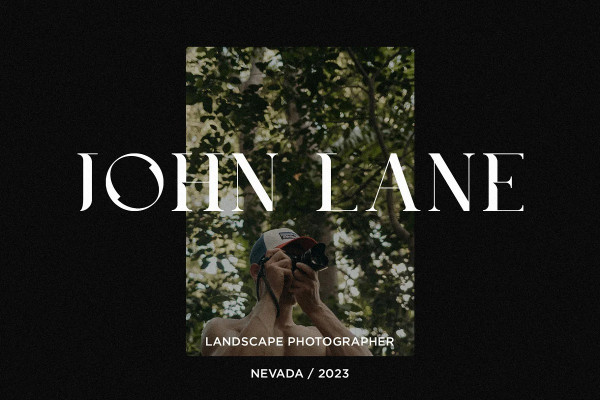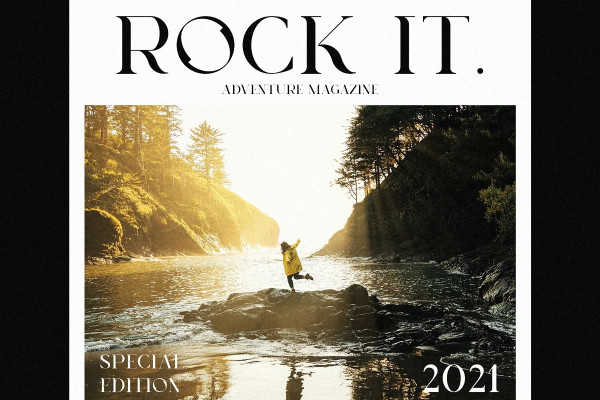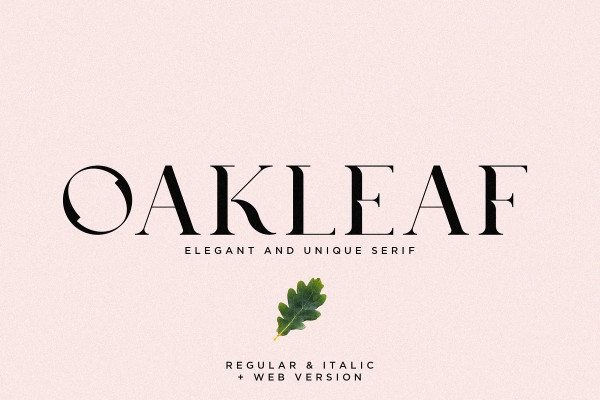
Oakleaf Font
Oakleaf Font is an elegant & unique serif. OakleafFont has a classic style of serif with unique curves to it. The typeface is easy to remember and can be easily used for headers, logos, labels, banners, etc. Also could be paired with sans serifs & scripts.